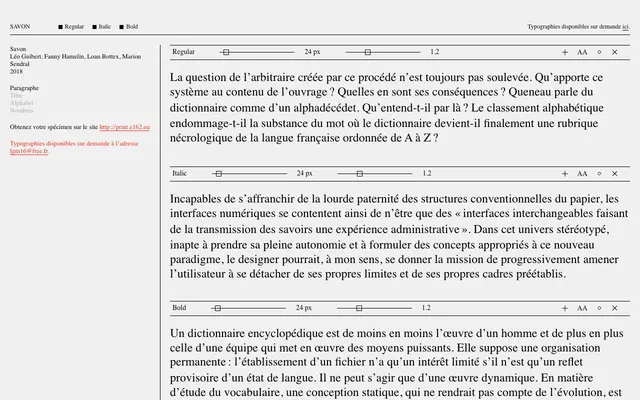
Savon
E162 · Léo Guibert, Fanny Hamelin, Loan Bottex, Marion Sendral · 2018
A three-style text serif produced in 2018 by four designers at E162, covering regular, italic and bold with 639 characters each.
Designed collaboratively by Léo Guibert, Fanny Hamelin, Loan Bottex and Marion Sendral, Savon is a text serif offered in three styles: regular, italic and bold. Each style carries 639 characters, suggesting solid Latin coverage for French-language setting. The typeface is available on request and accompanied by a printed specimen accessible via the E162 print subdomain.
The specimen text and style suggest a classical text serif with upright roman, italic, and bold cuts, typical of transitional or humanist serif construction suited to extended reading.